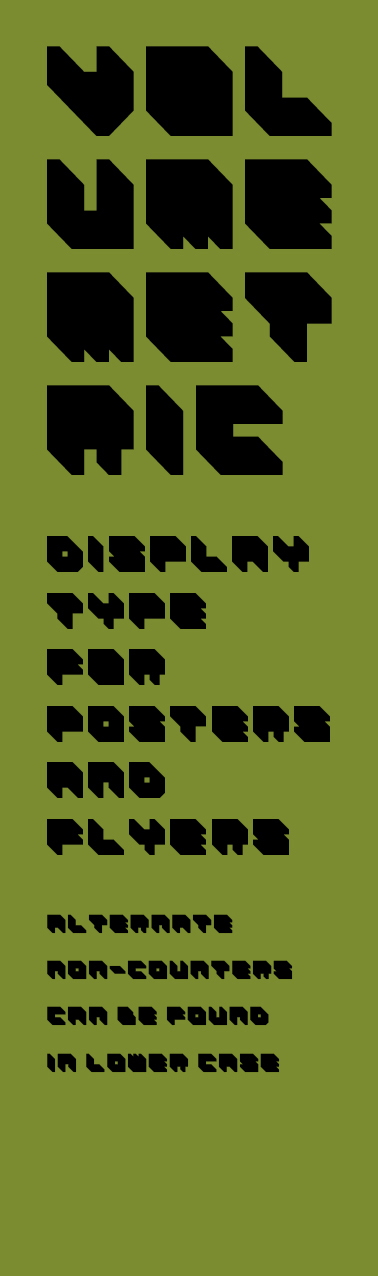
Great effect, looks very cool... Very usable for stylish flyers or posters.
Maybe you could do lowercase alternates for some letters!
Btw it's funny how you can switch the perspective perception here (as always on flattened 3d-shapes): Either it sticks out from the bottom right or from the top left. I'm sure some smart psychologists could make freudian psychological conclusions on the viewer's personality depending on which way he intuitively sees this... :P
Cheers shasta, i might have to get on the lower-case! extruded top left i think - have no idea what that says about me!
This font is so great there's almost nothing to add in order to achieve a great design!